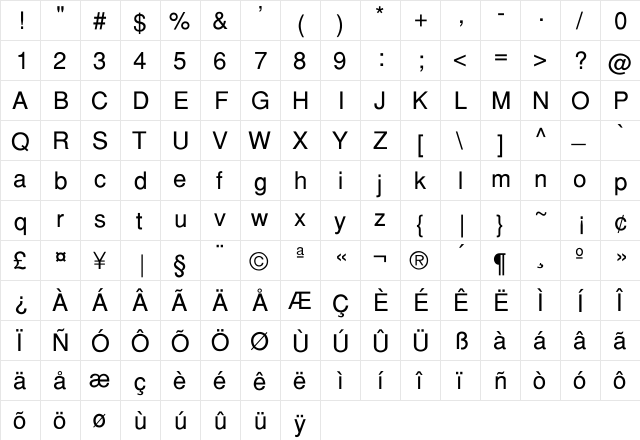
Helvetica-Normal Regular Font Preview
Helvetica-Normal Regular
Helvetica-Normal Regular Font Details
Design Context for Helvetica-Normal Typeface
Helvetica-Normal is a composed and adaptable typeface that performs quietly and consistently across a wide range of design contexts.